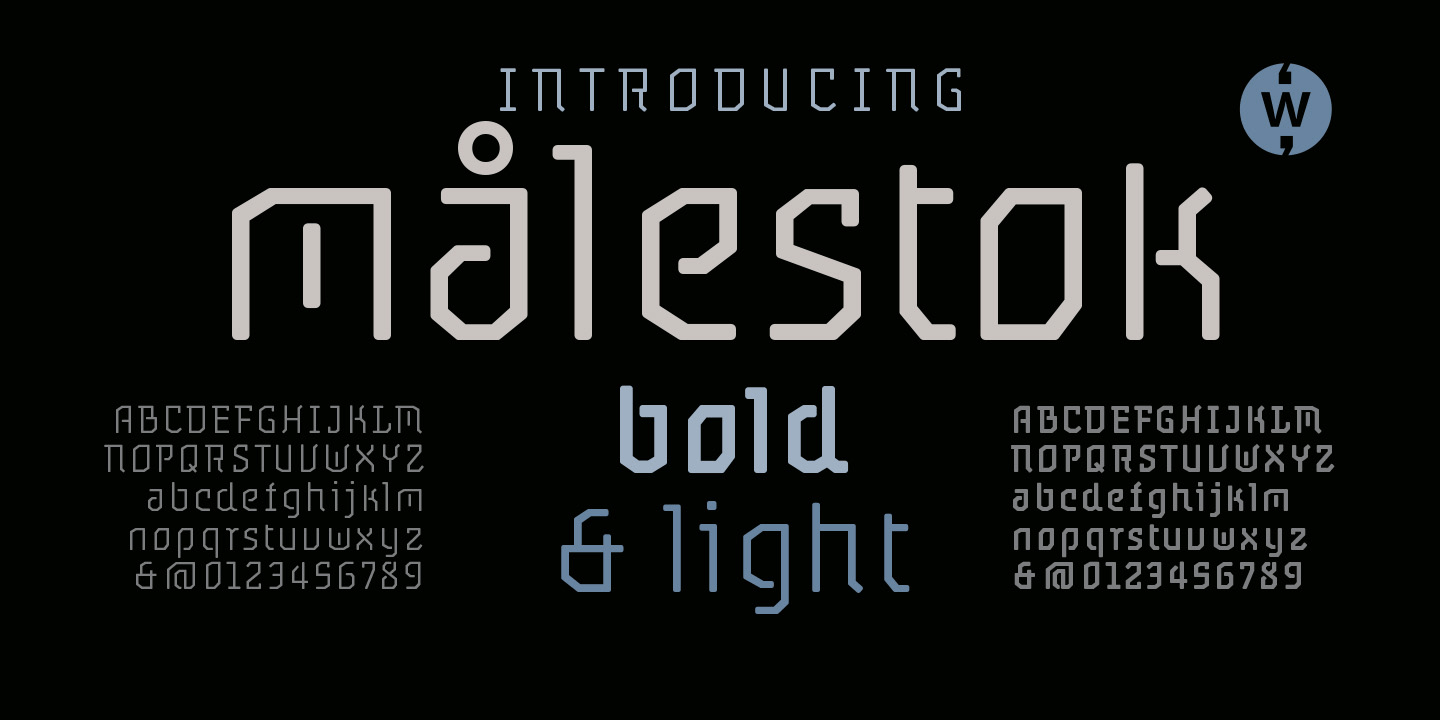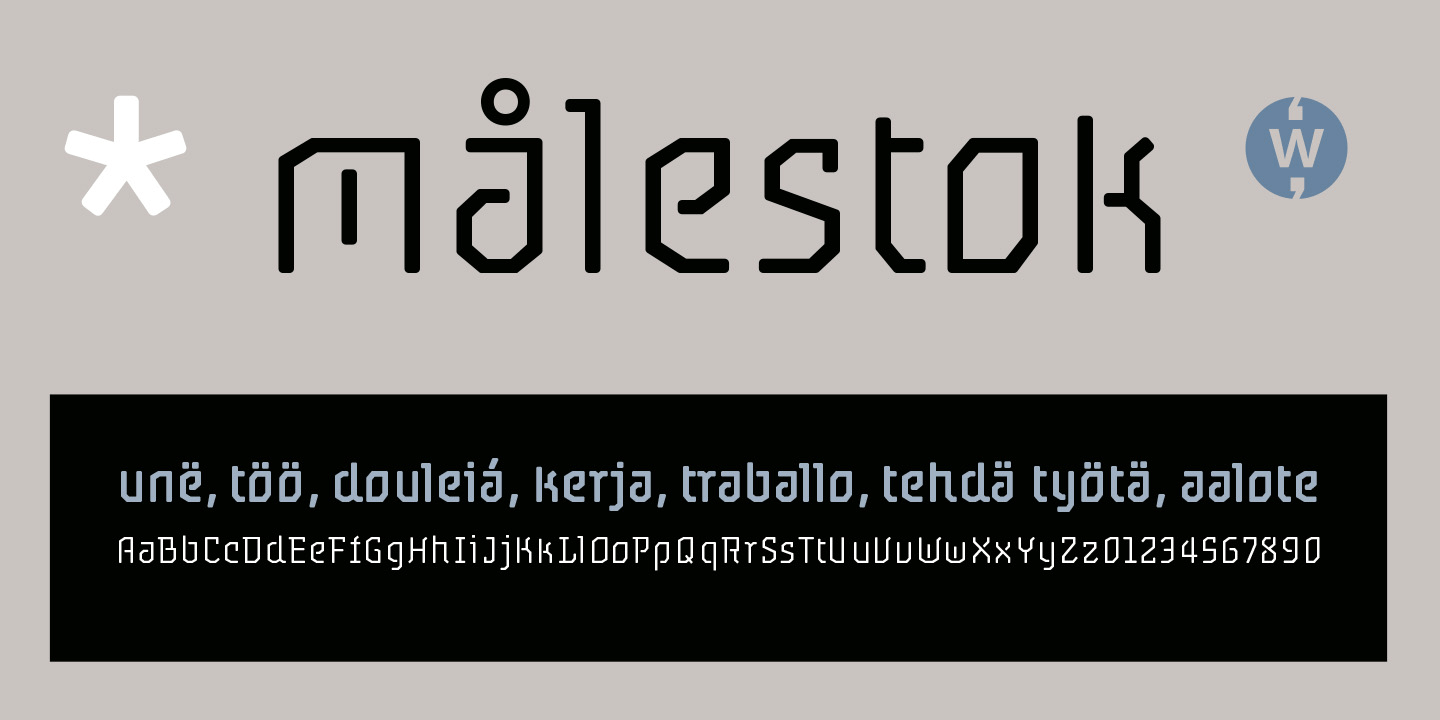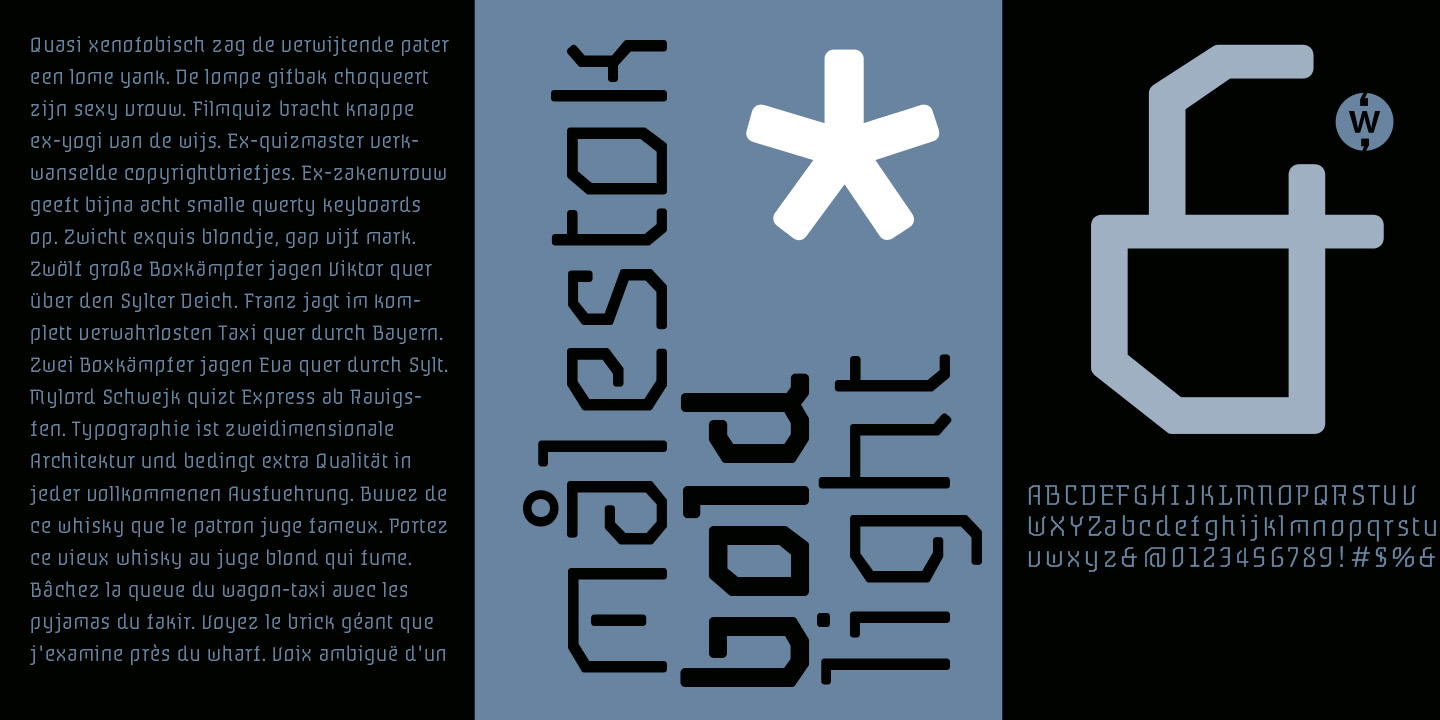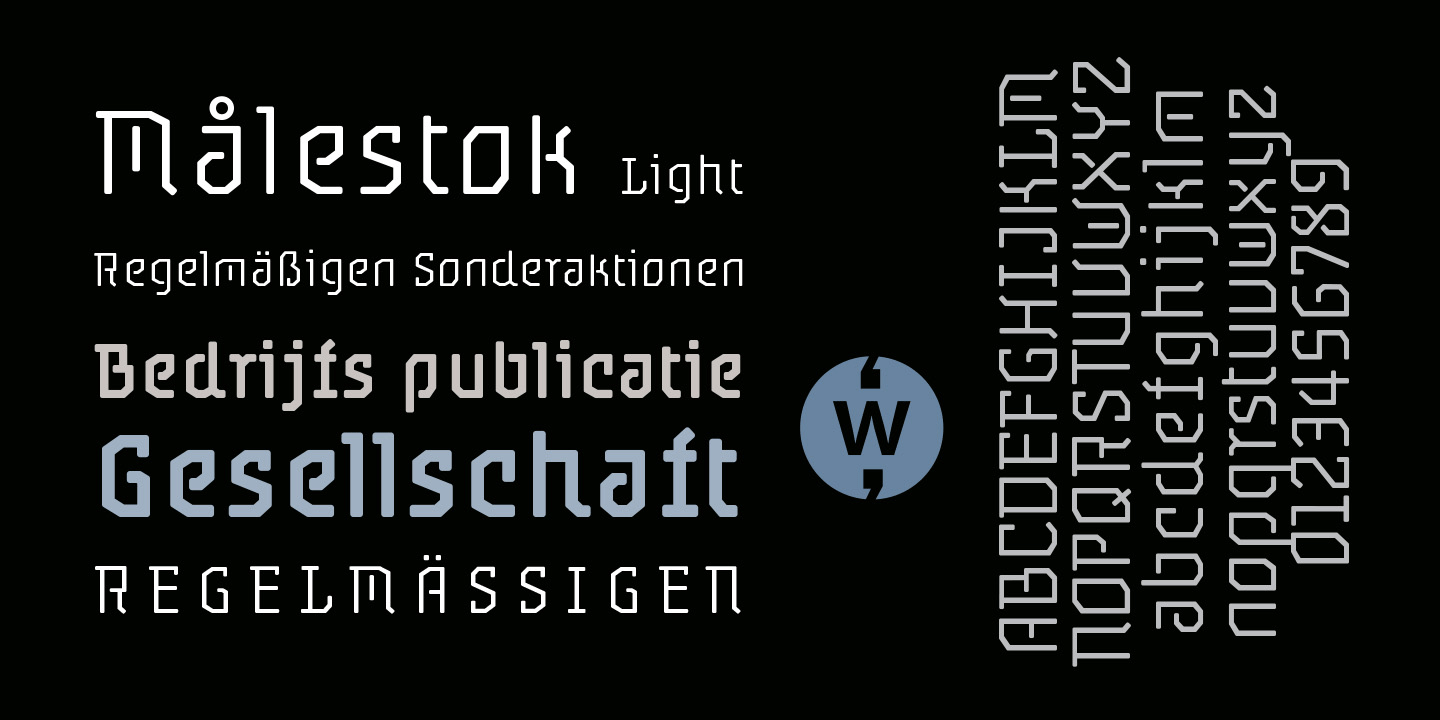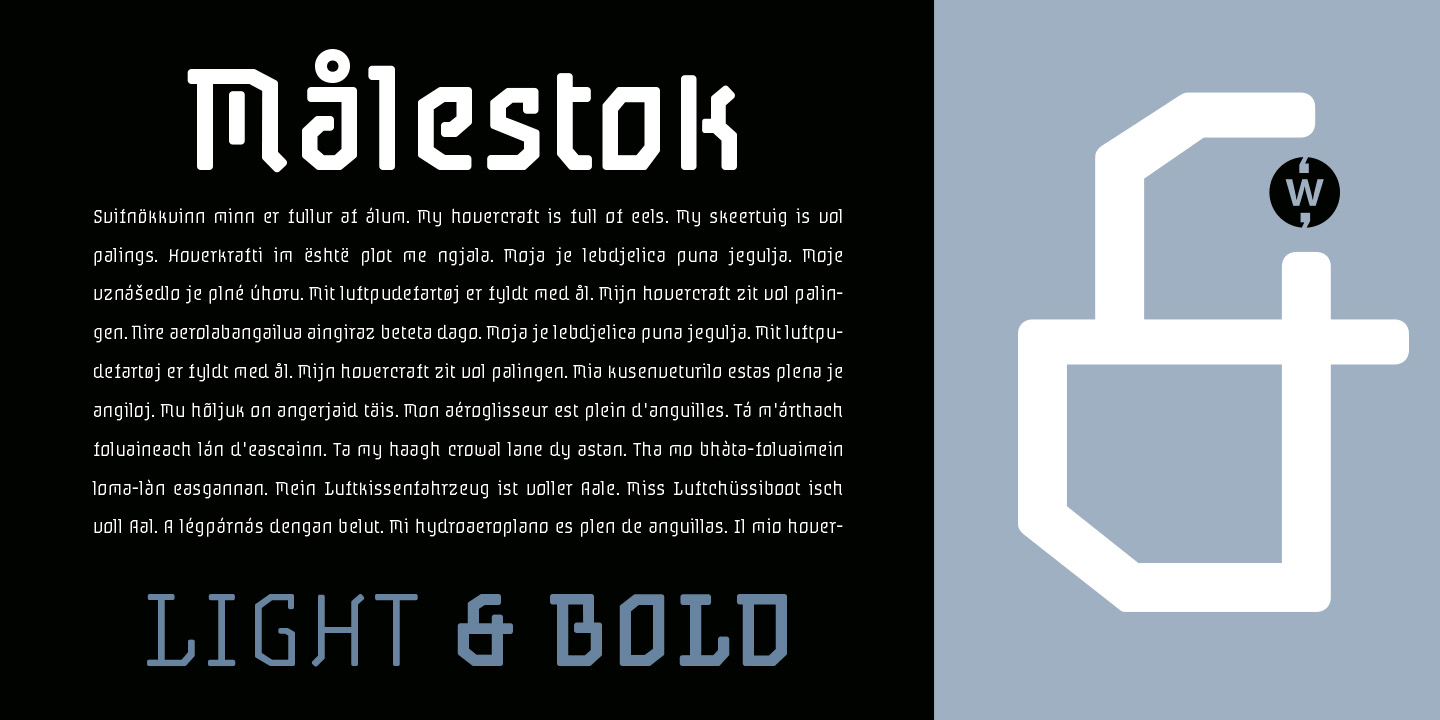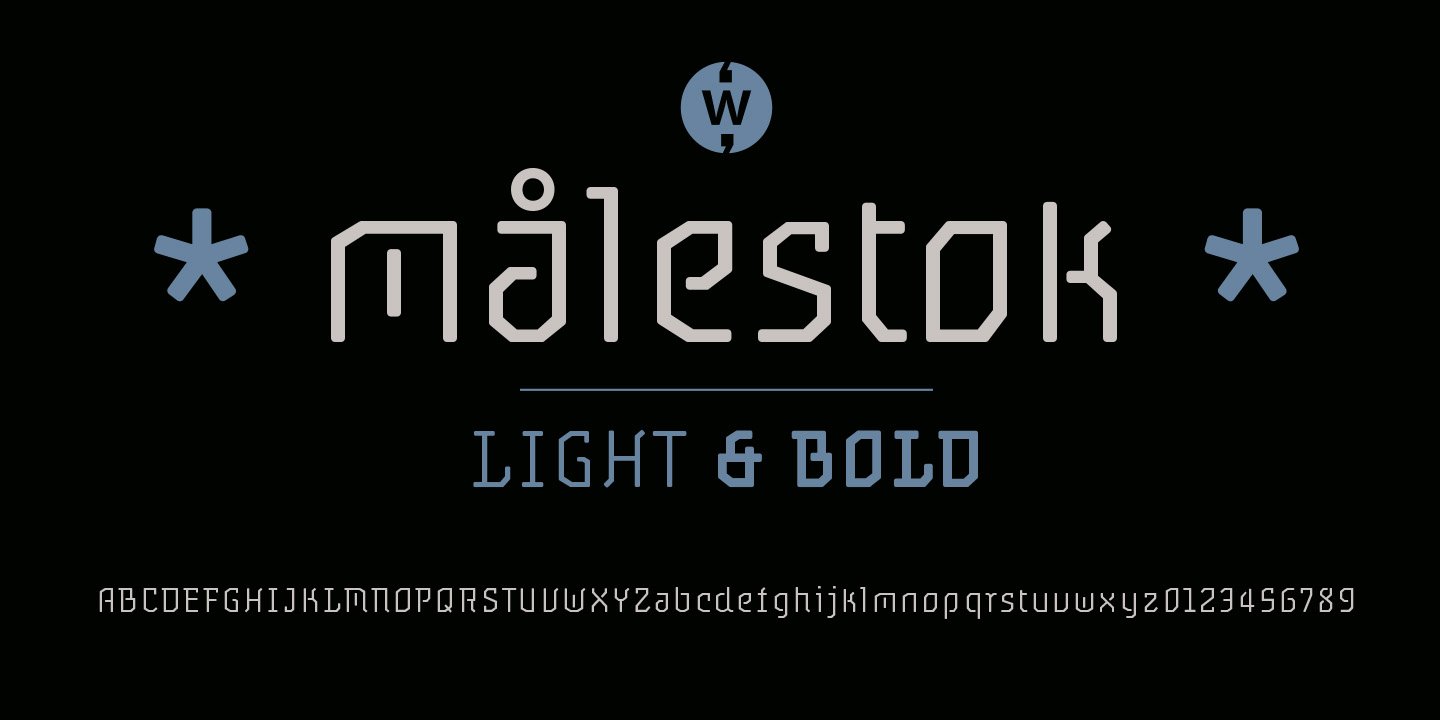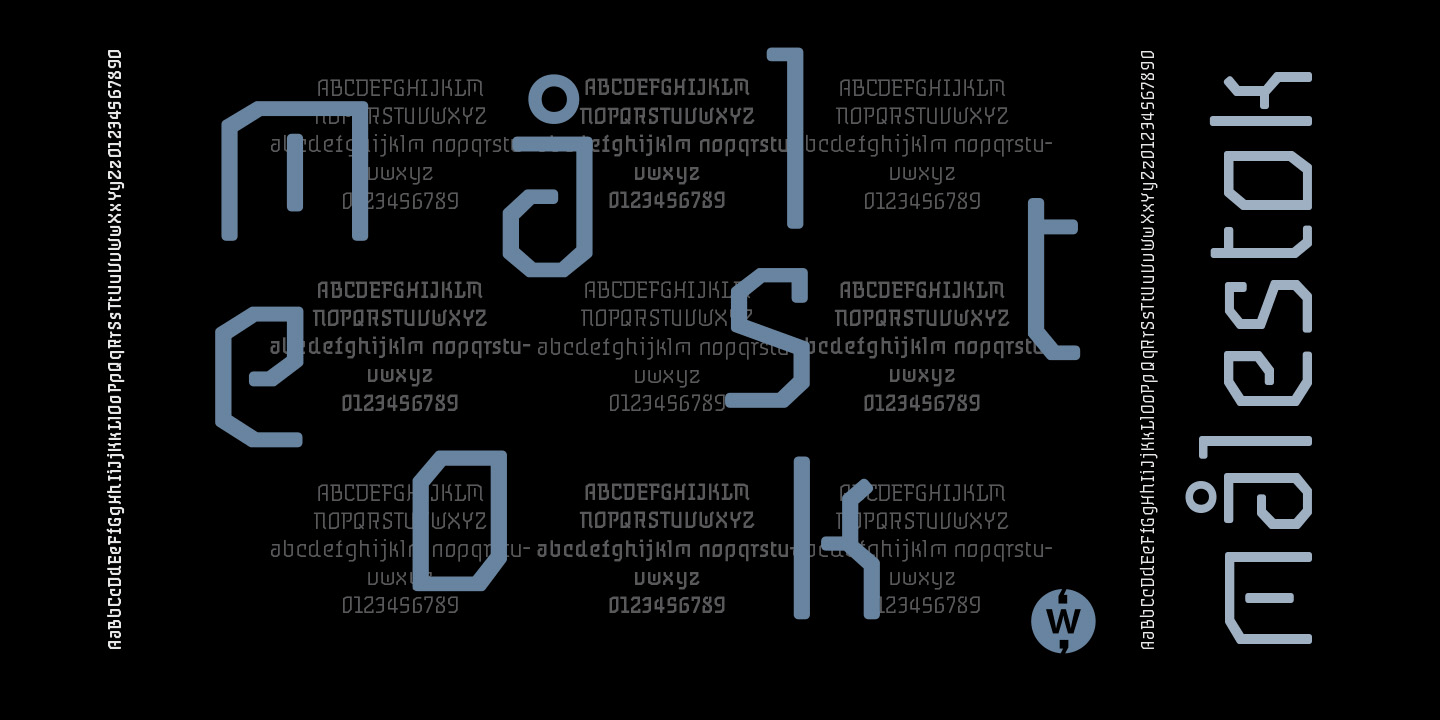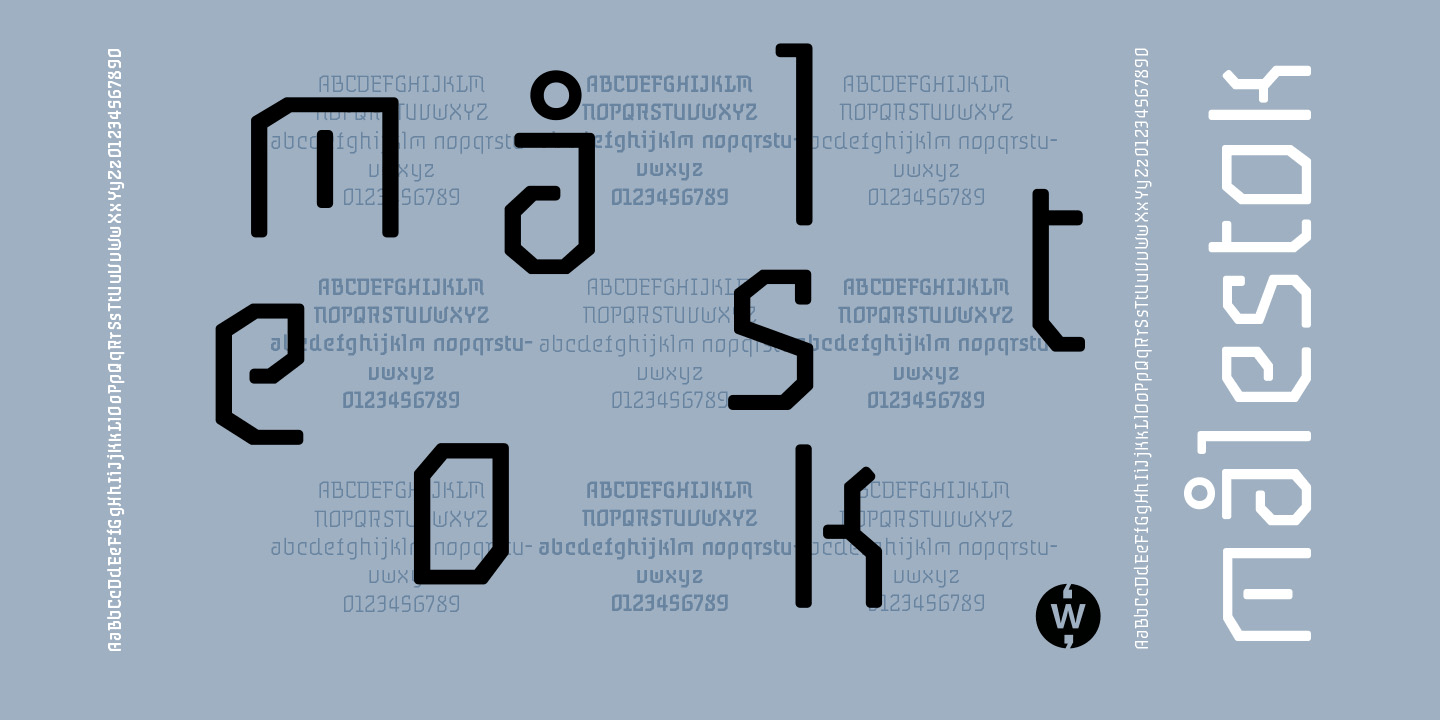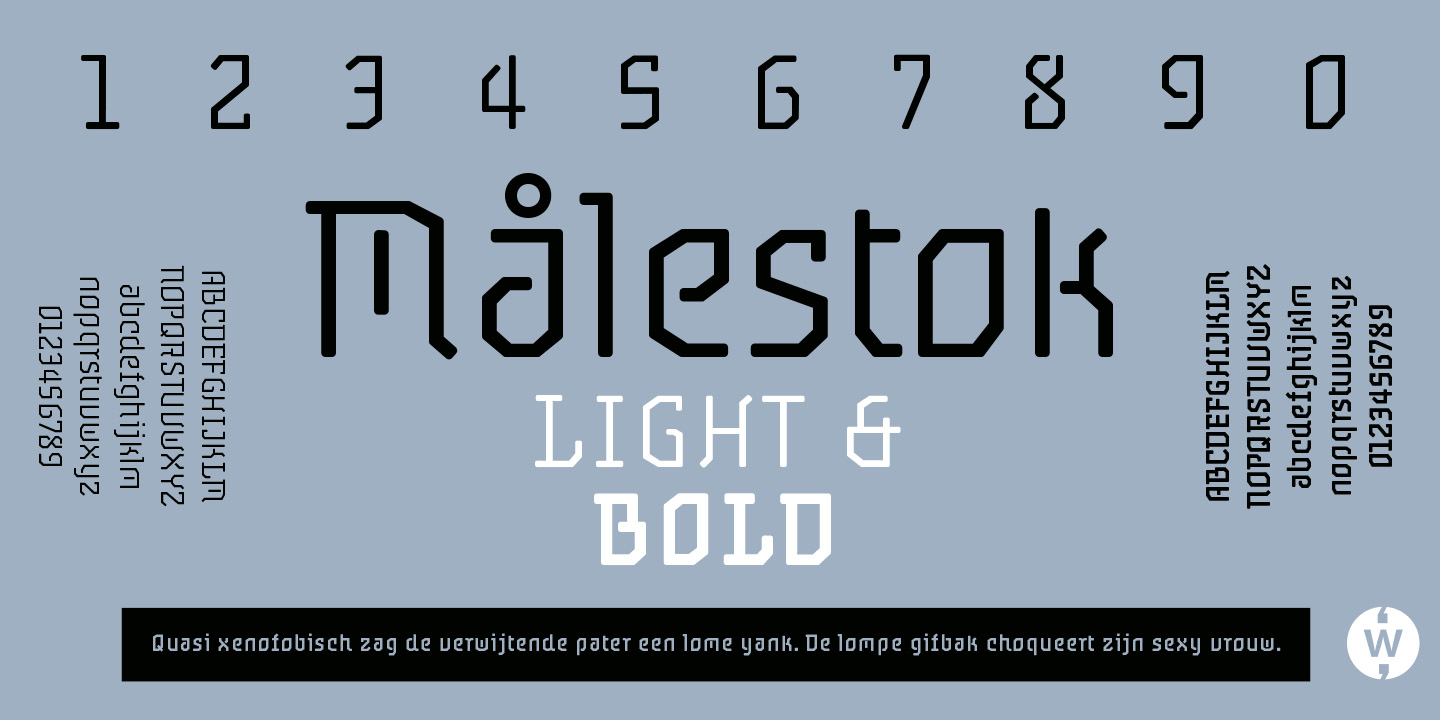
Målestok
About Målestok
The Målestok family (Light, Light Italic, Bold, Bold Italic) is an eclectic solution for a broad range of applications. The rounded outer corners combined with select stencil effects makes for an interesting and friendly face. In large sizes, the…